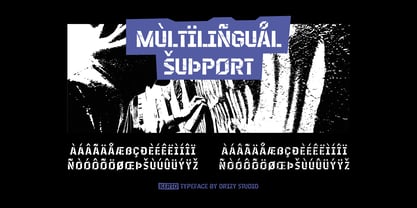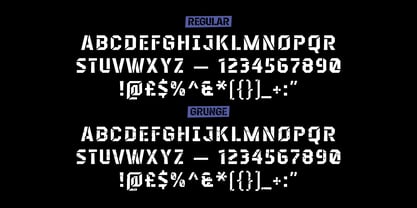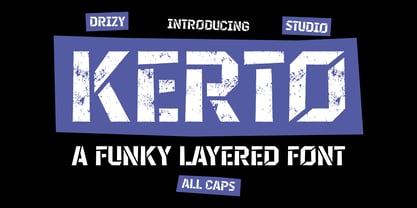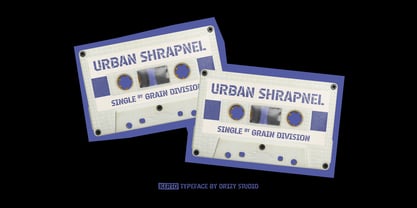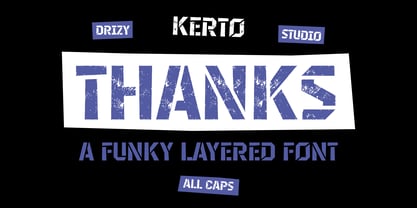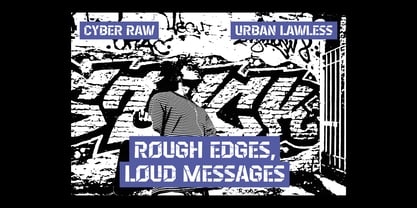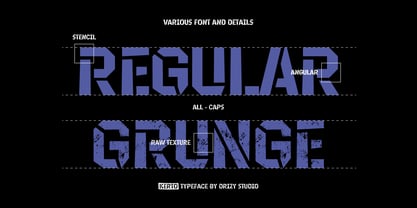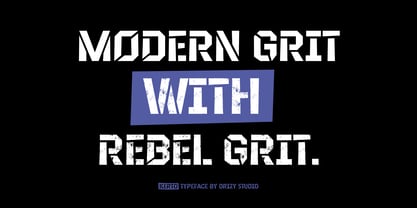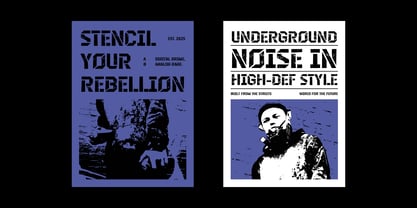
Kerto
by Drizy Font
The Kerto Font Family was designed by Panca Ahmadi Hasan and published by Drizy Font. Kerto contains 2 styles and family package options. More about this family
Kerto – Funky Layered Font
Kerto is a bold and playful layered font inspired by urban stencil graffiti art. With its funky shapes and edgy cutouts, Kerto brings a rebellious street vibe to your designs. Perfect for posters, album covers, apparel, and creative branding, this font lets you layer colors and textures for a raw, eye-catching look. Make your message pop with Kerto — where funky meets street art in a bold, layered style!
• Character Set (All Caps)
• Numbers & Punctuation
• Multilingual
• Two Style Font: Regular & Grunge